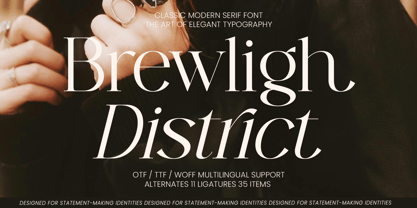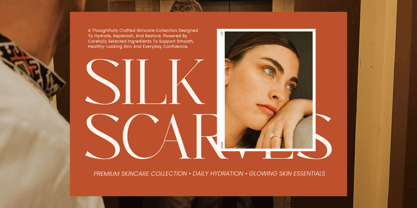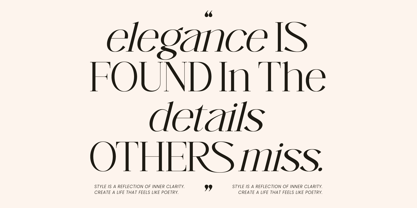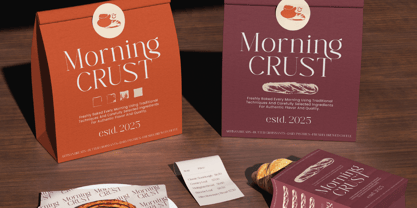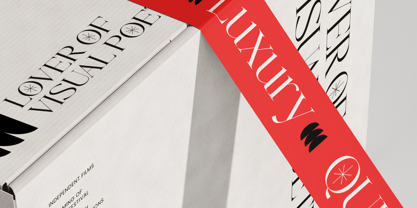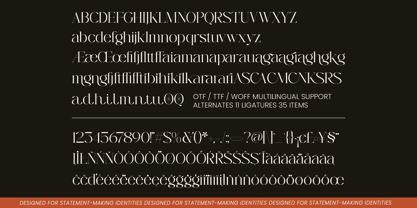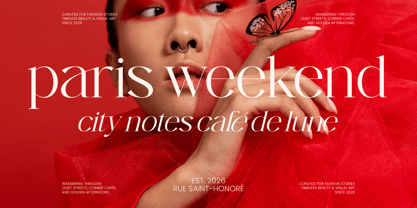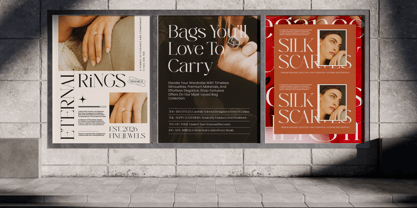
Brewligh District
Die Schriftfamilie Brewligh District wurde von Shiddiq Roihan entworfen und von Amorfa Type veröffentlicht. Brewligh District enthält 2 Stile und Familienpaketoptionen. Mehr über diese Familie
Brewligh District is a classic modern serif font designed to embody elegance, sophistication, and timeless luxury. Inspired by contemporary editorial typography, premium fashion branding, and refined visual culture, it combines graceful letterforms with striking contrast to create a memorable and sophisticated presence.
With elegant proportions, refined curves, and luxurious details, Brewligh District is perfectly suited for branding, packaging, logos, fashion campaigns, beauty products, magazines, editorial layouts, and high-end visual identities. Its modern serif construction delivers both readability and aesthetic impact, making it ideal for projects that demand refinement and distinction.